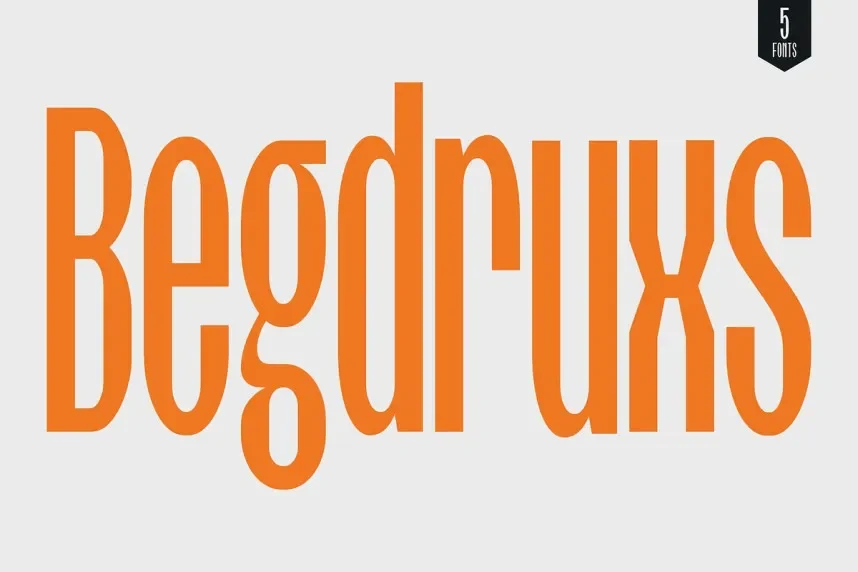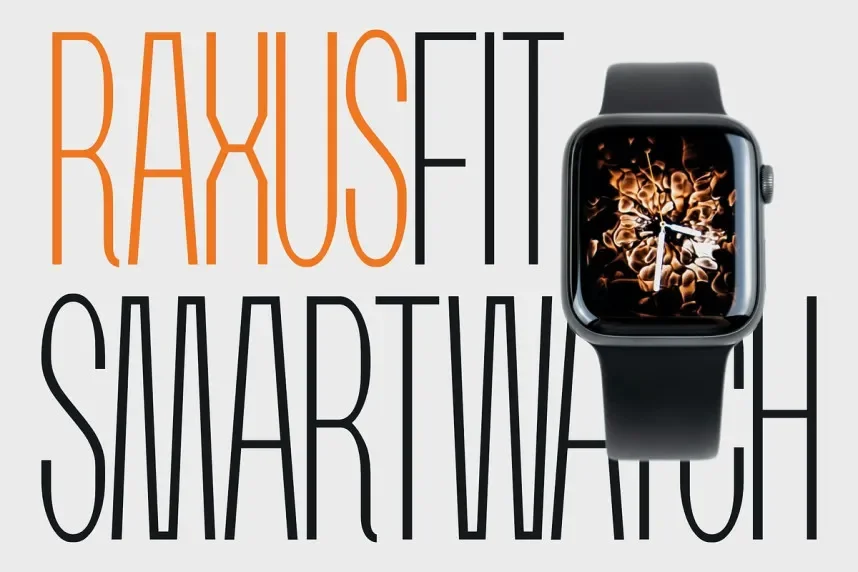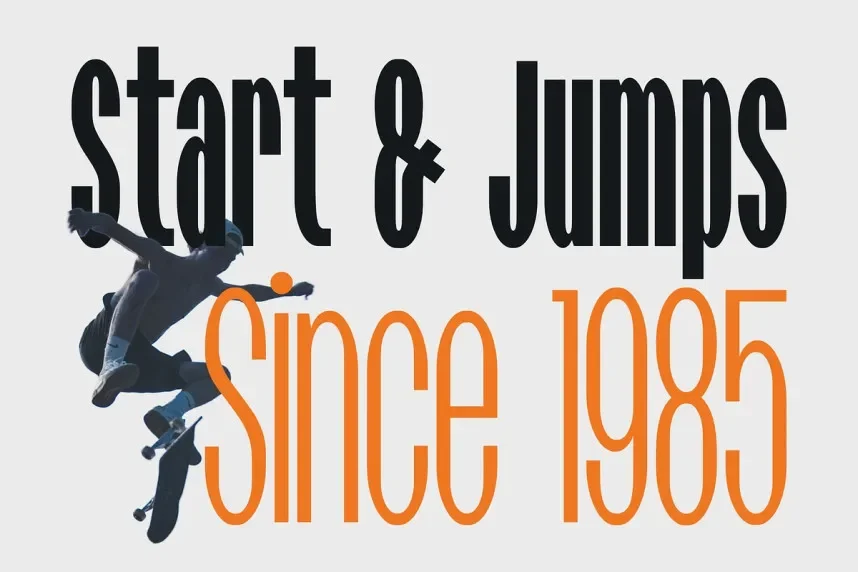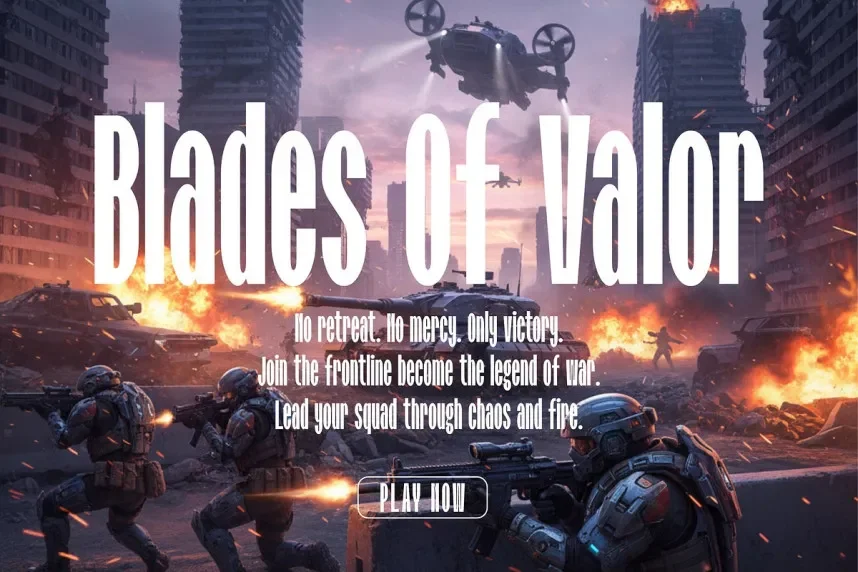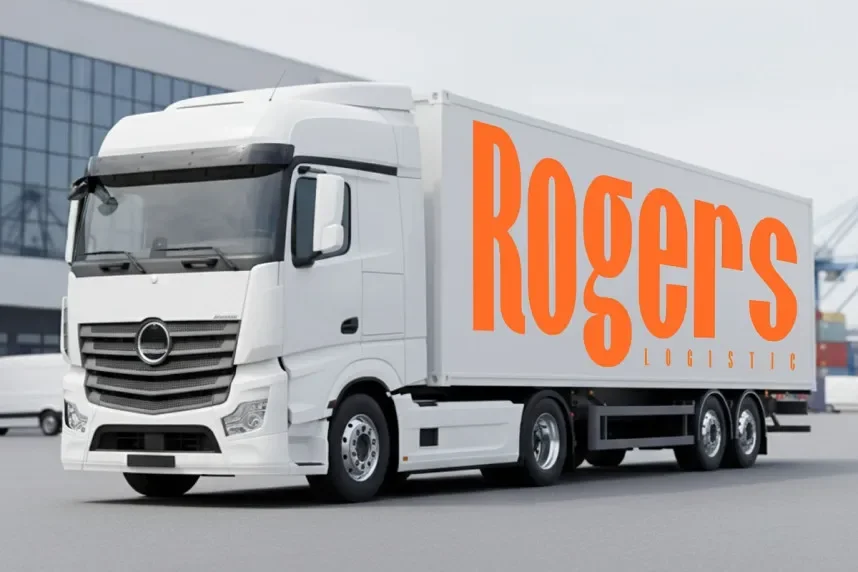
Begdruxs Font Family addresses creative projects that require unconventional letterforms while maintaining basic readability. Designers working on experimental branding or visual concepts often need fonts with distinct structure.
Begdruxs Font Family is a display font family featuring irregular shapes, angular strokes, and alternative character styles. Stroke contrast varies across letterforms, giving the font a distinct visual rhythm.